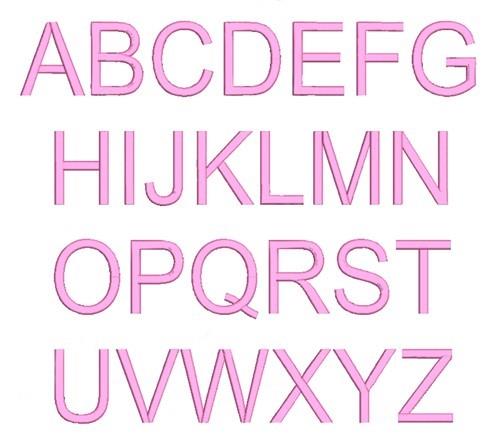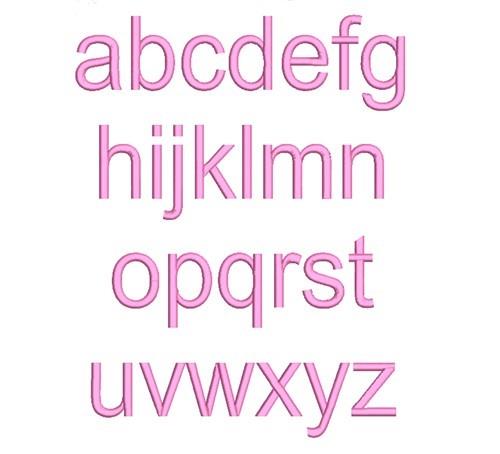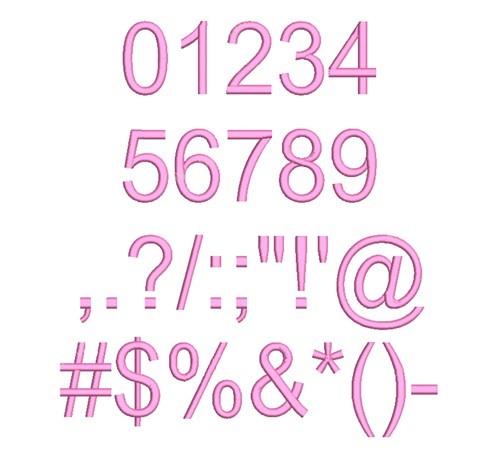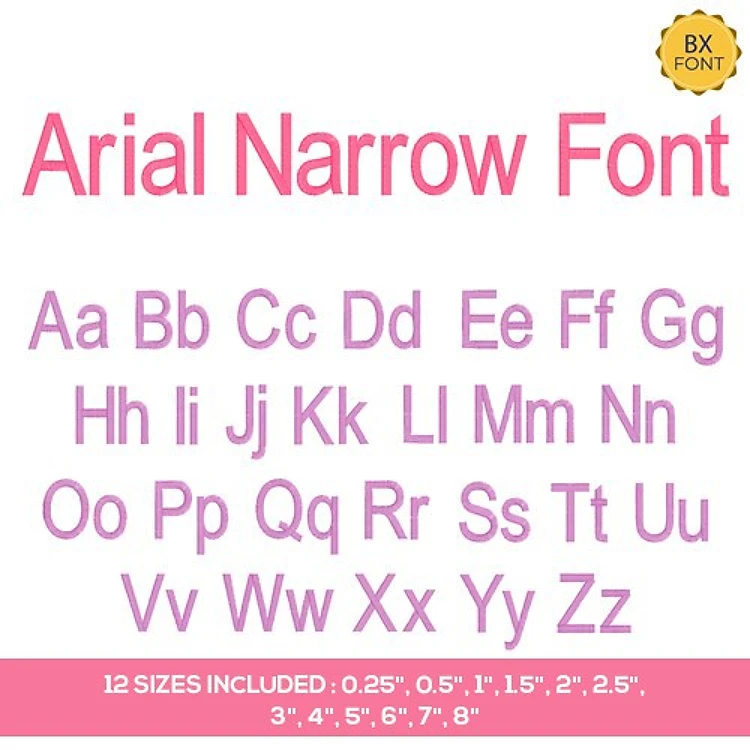
Maya Kreations is happy to present Arial Narrow - 12 Sizes Included Embrilliance machine embroidery font which has Classic block machine embroidery font in a vibrant pink, perfect for clear and structured designs on apparel or home decor. Available in various sizes and formats including BX font and Embrilliance. included. If you would like to view more embroidery fonts and alphabets please search our embroidery fonts page.